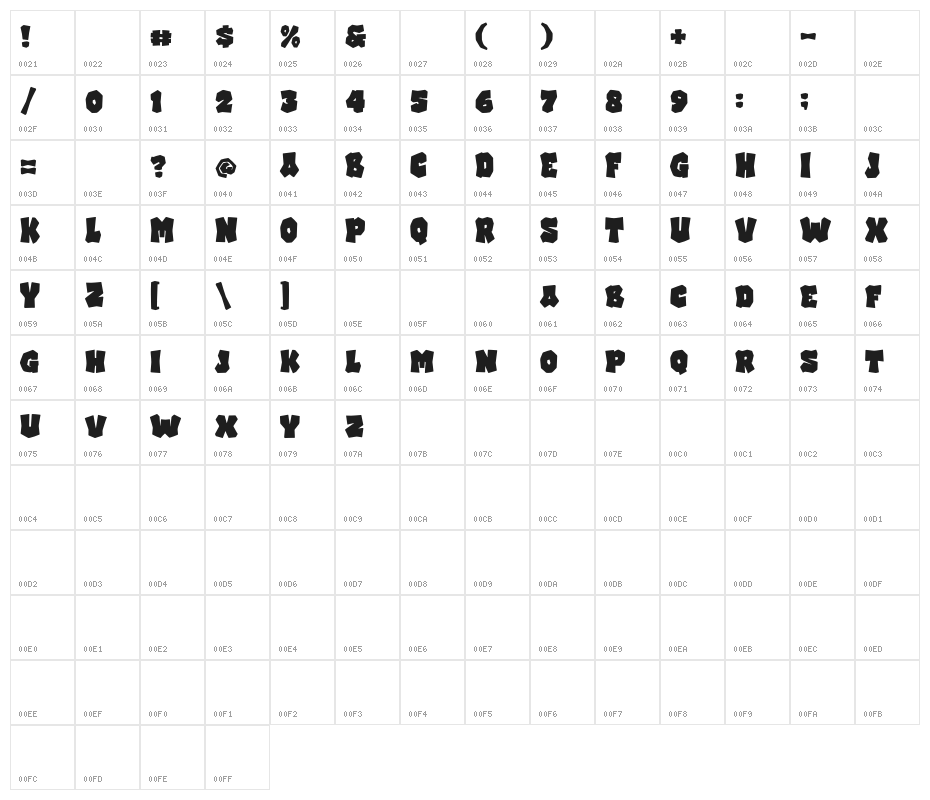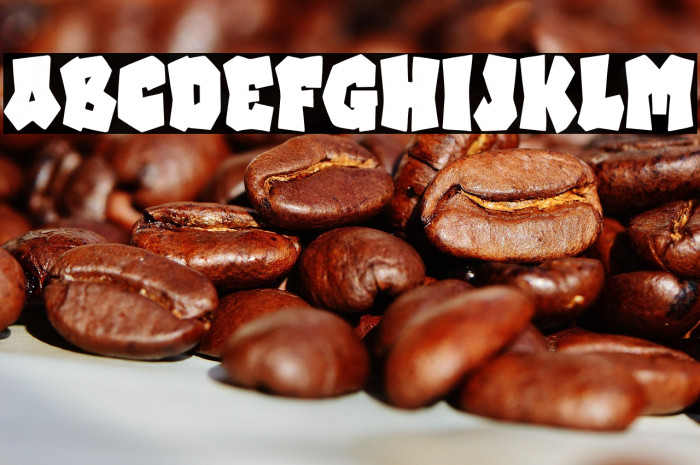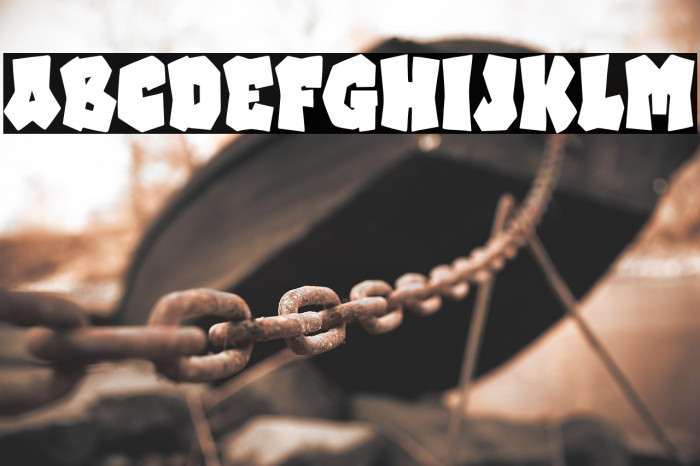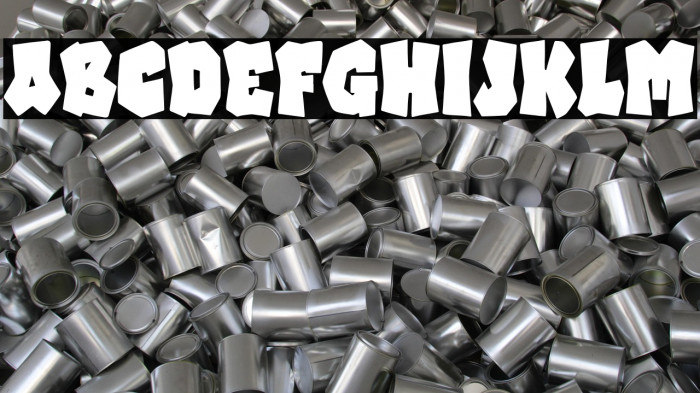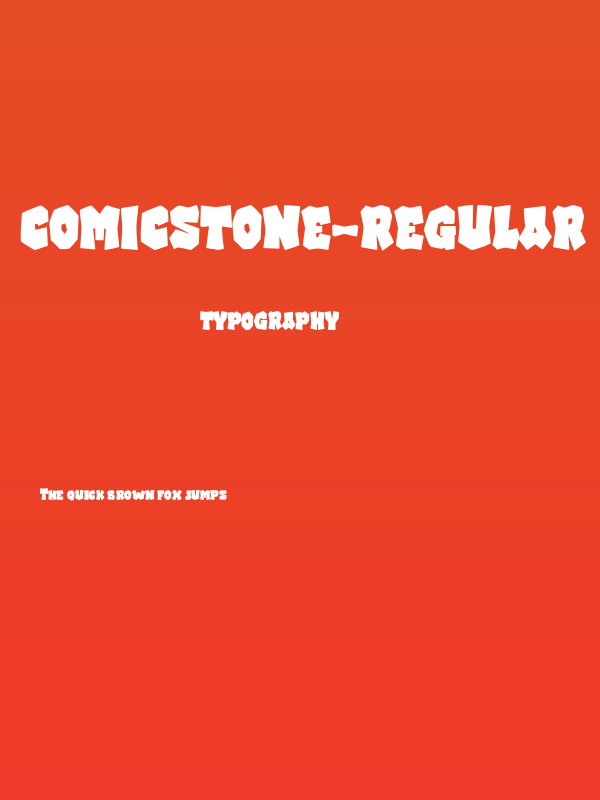
ComicStone-Regular Font
ComicStone-Regular Description
This font features a bold and playful design with a distinctly comic-inspired style. The characters are chunky and irregular, giving them a hand-drawn appearance that adds a sense of fun and whimsy. The uppercase and lowercase letters maintain a consistent weight, contributing to a cohesive look. The numbers and special characters follow the same playful aesthetic, making the font suitable for creative and informal projects. Its unique style is perfect for capturing attention and conveying a sense of humor or lightheartedness.
| Overall Style | Playful, Comic |
| Proposed Projects | Ideal for comic books, children's books, playful branding, posters, and any project requiring a fun, informal touch. |